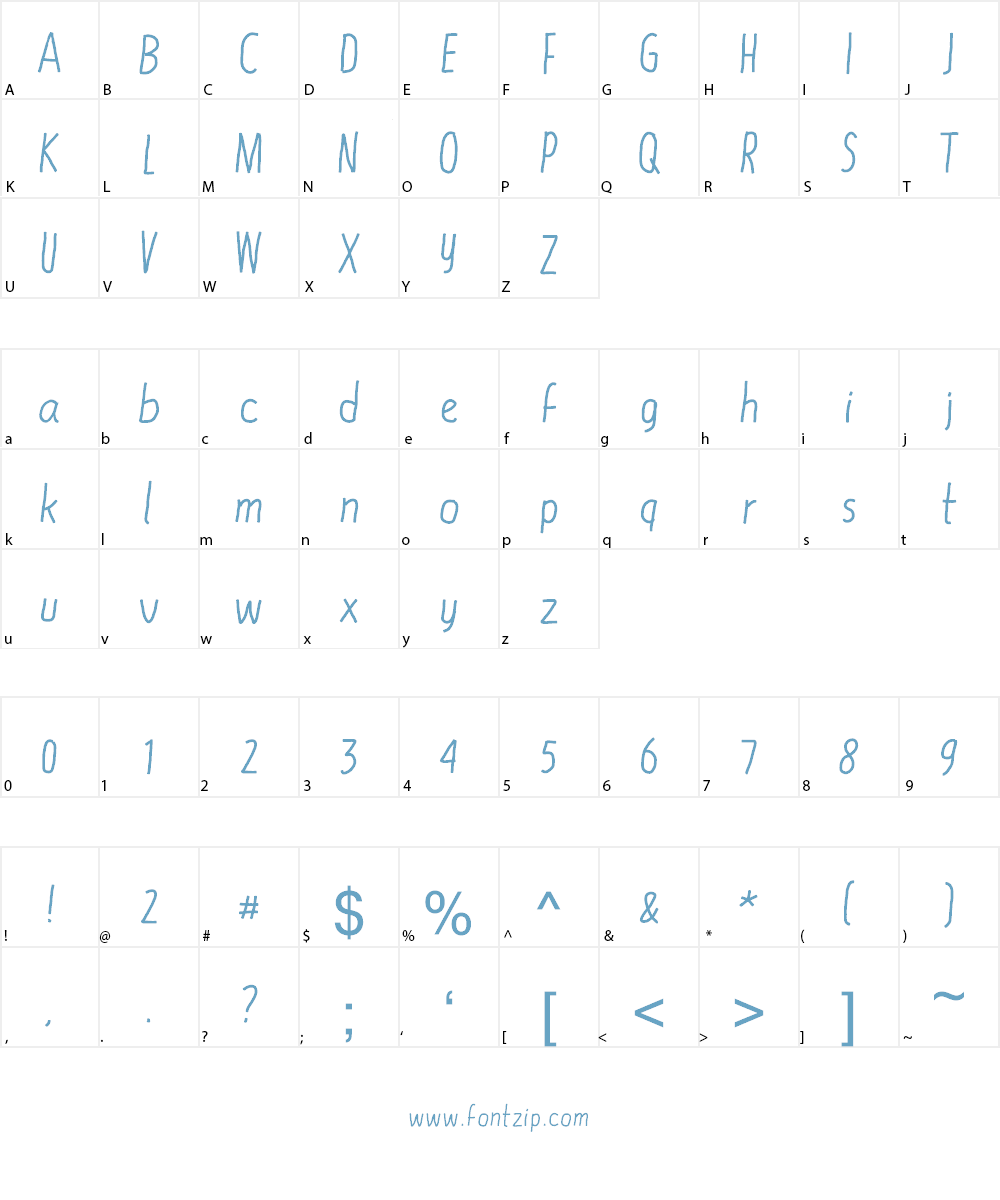
DF Thin - regular. ver 1.0
Handwritten with minimal kerning. check back for upcomming new versions.
Originally designed for use in explainer videos, but use it how you like!